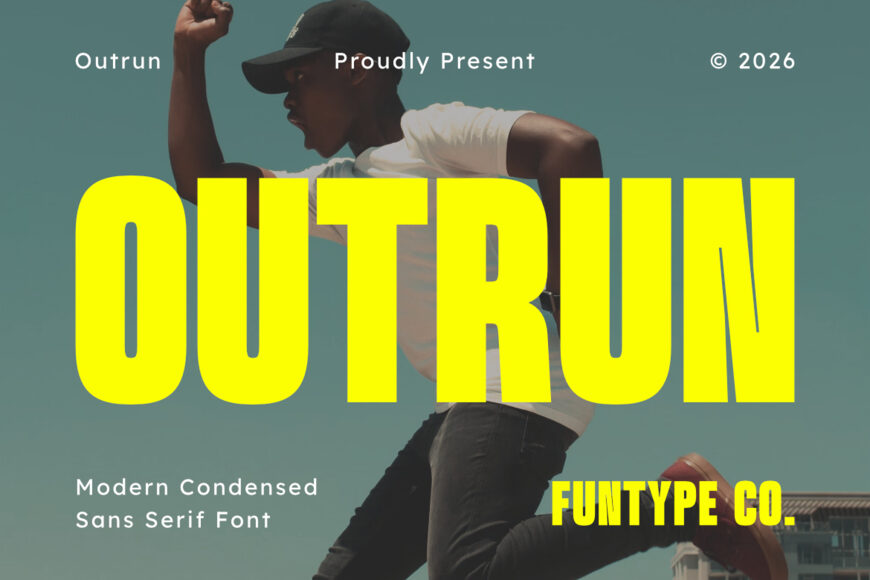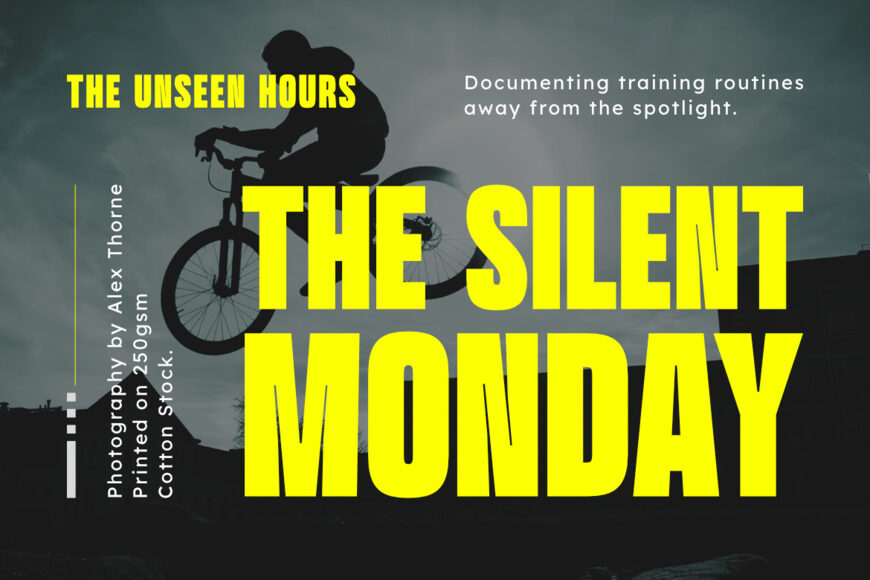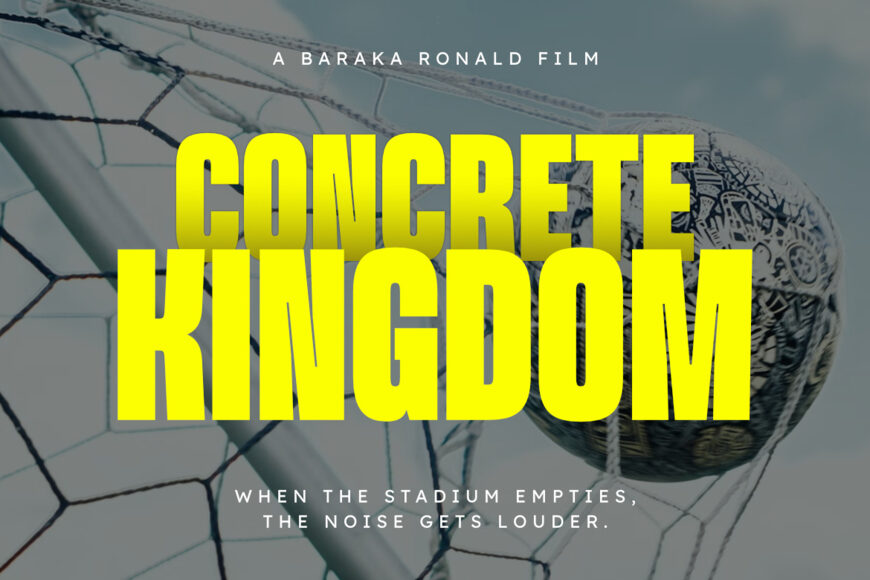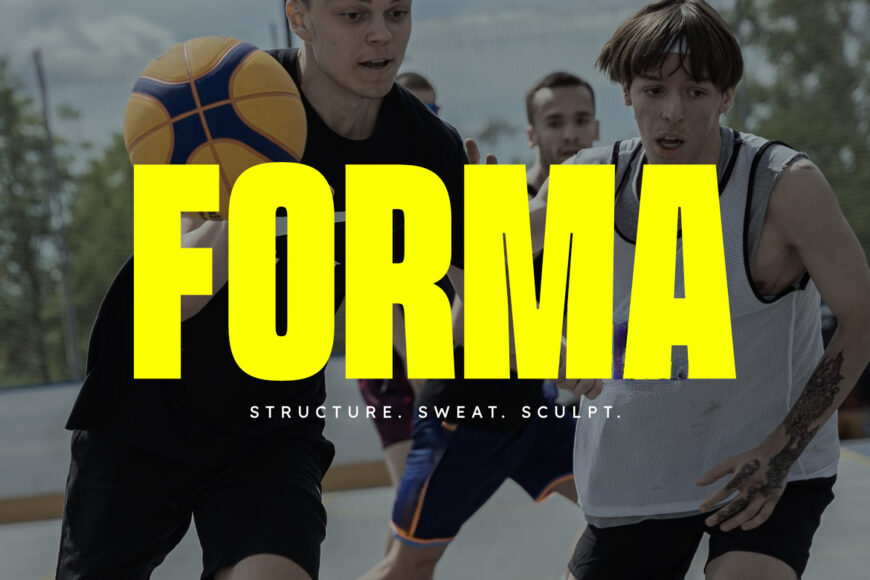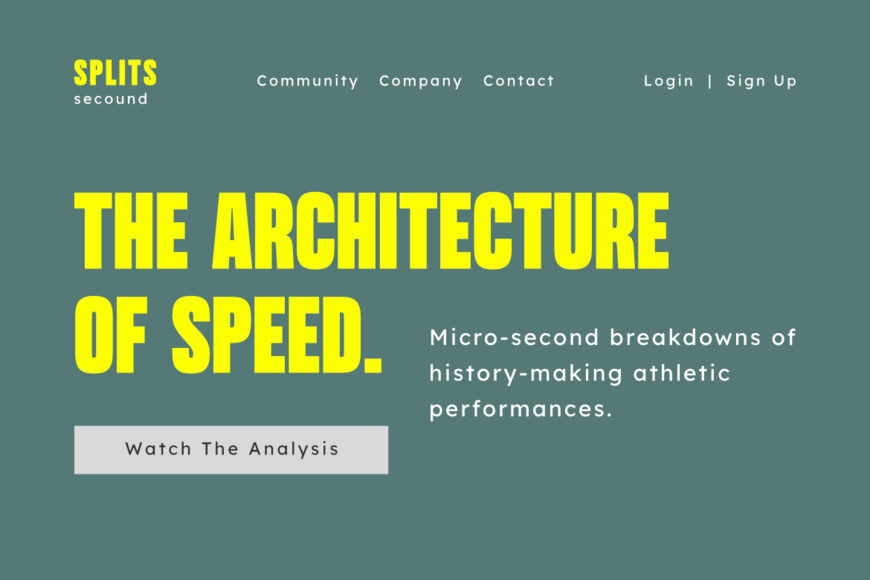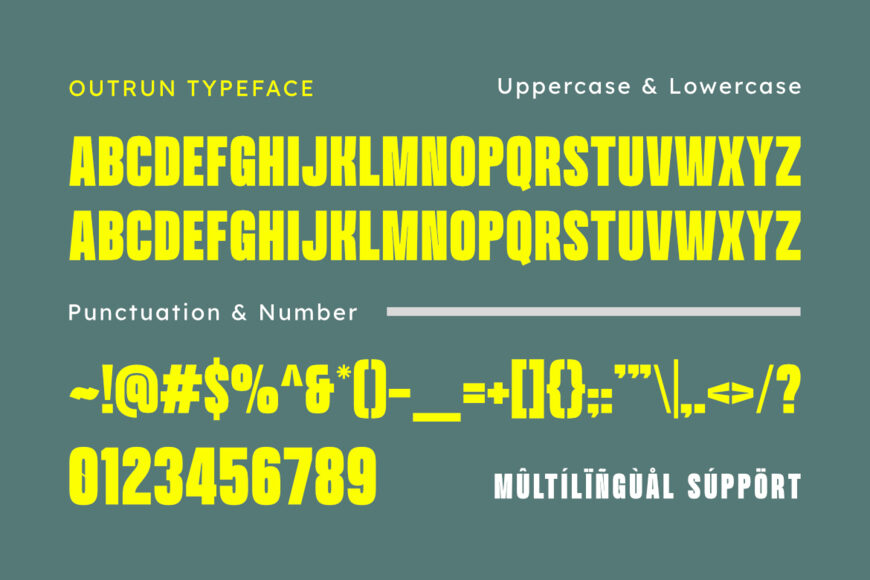
Outrun is a bold, high-impact, and modern condensed sans serif font, engineered to bring a powerful athletic presence, tall space-saving geometry, and dynamic display aesthetic to contemporary design layouts.
Featuring an elongated vertical profile, heavy block proportions, and sleek curved corners, Outrun introduces a dynamic sports broadcast identity, marathon event promotion, high-energy editorial publishing, and prominent digital presentation designed to claim absolute visual focus.